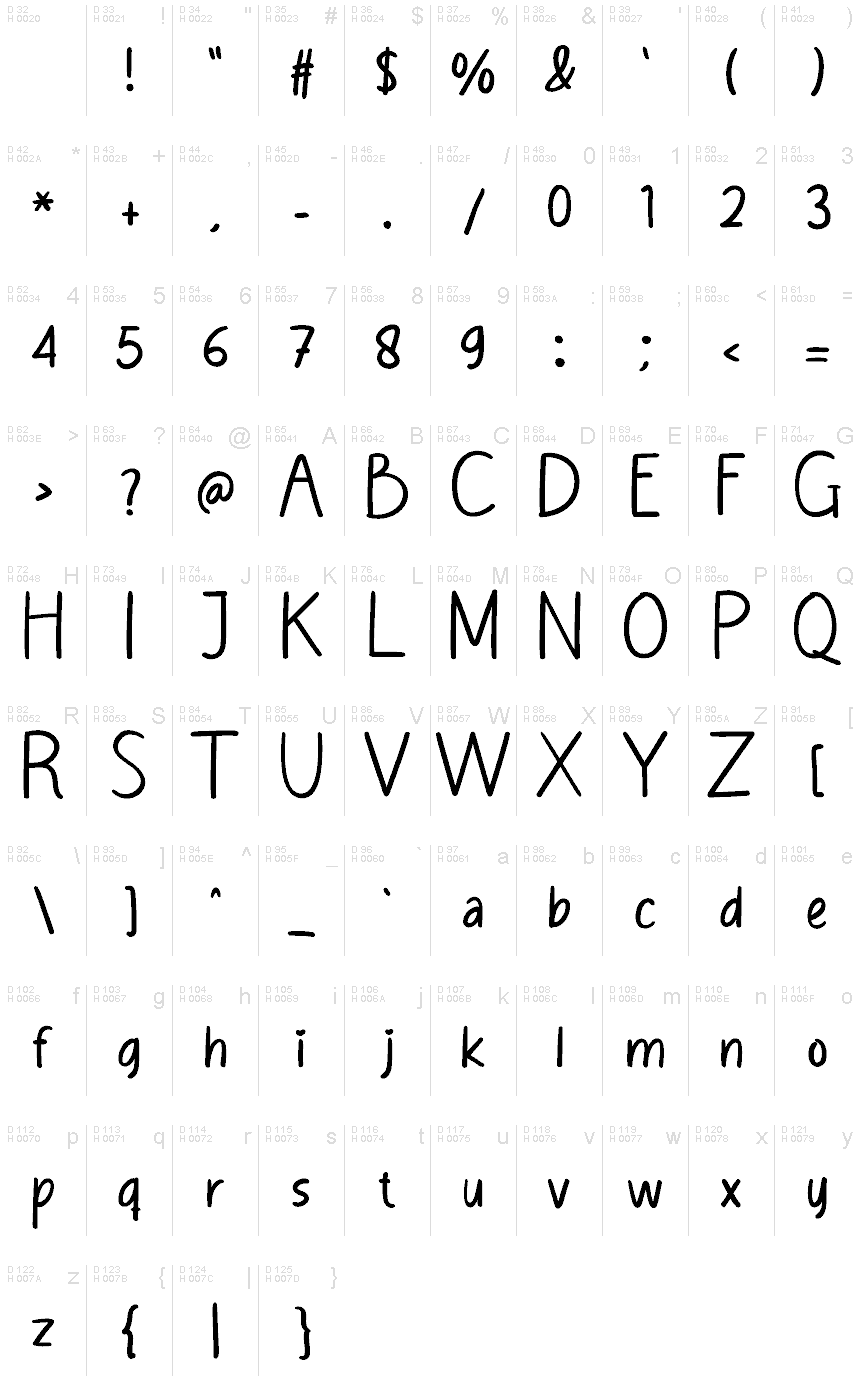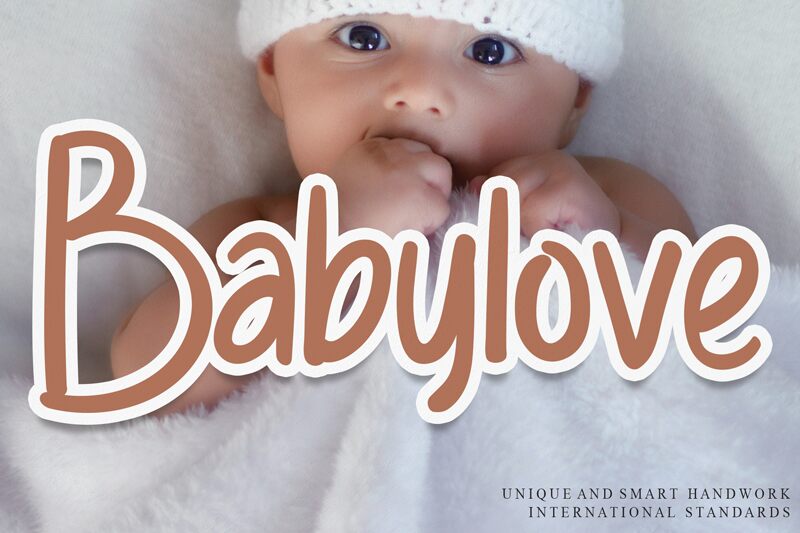
Babylove
Babylove font is a delicate and expressive handwritten font designed by Scratchones. The letters bring a modern signature style with casual elegance, an unusual yet charming combination for such a typeface. Friendly and approachable, this resource can easily be used to portray care, intimacy, and love with plenty of showcases just waiting for the next project.
A free handwritten font like Babylove is perfect for t-shirts and uniforms meant to represent the brand as well as business cards and greeting cards or invitations. Logos can also appear in an elegant form with coffee shops, photography businesses, spas, accessory brands seeking class within limited boundaries.